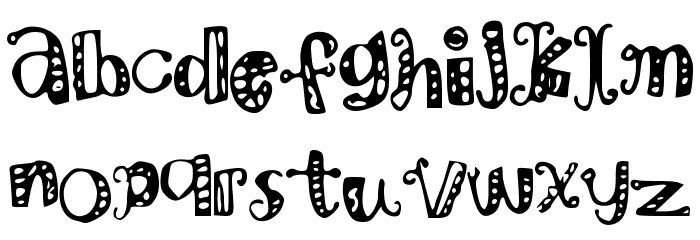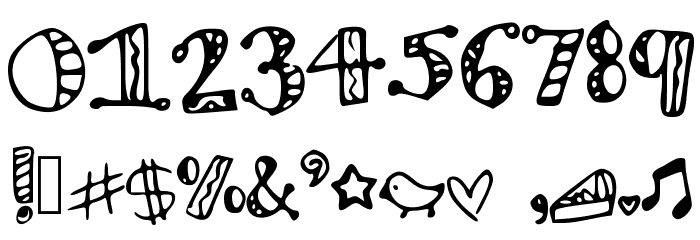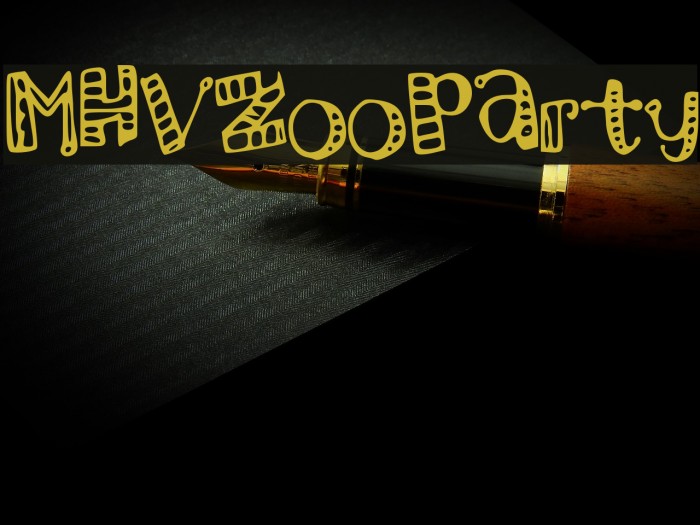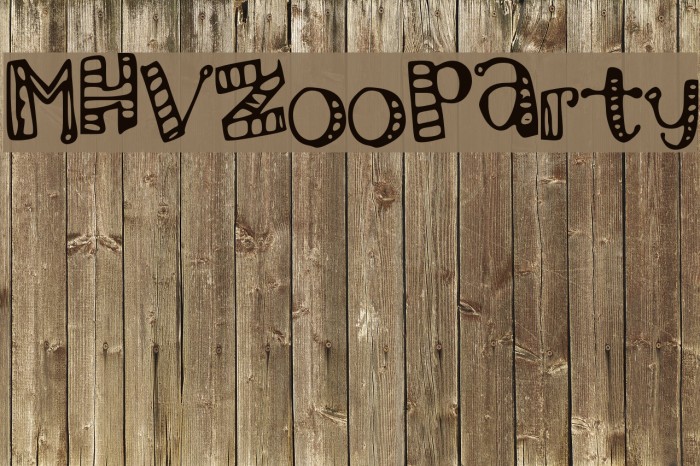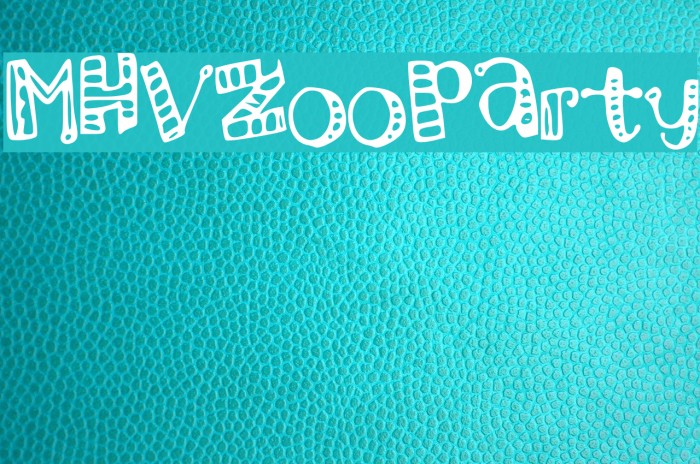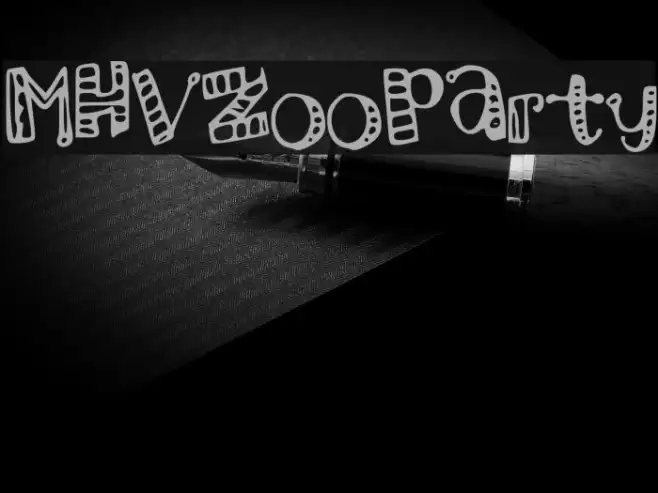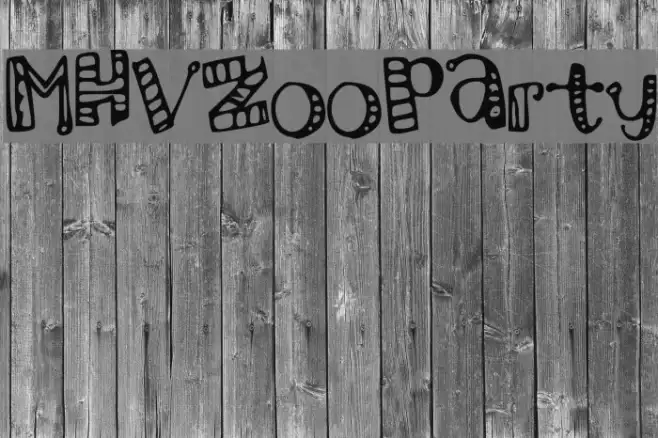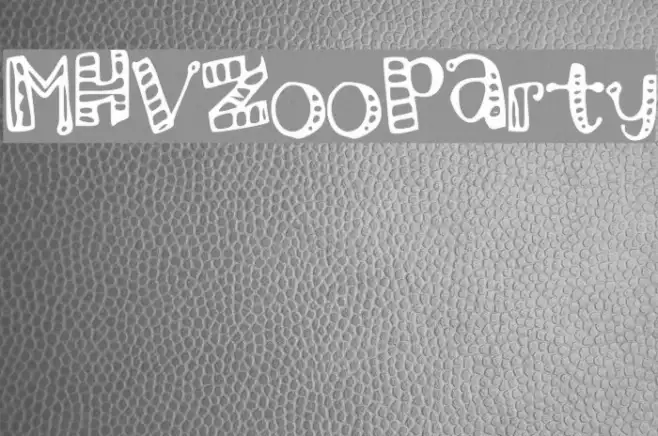
MHVZooParty Font
This playful and whimsical font features a variety of decorative elements within each character, including polka dots, stripes, and stars. The letters are bold and cartoonish, with a hand-drawn aesthetic that adds a sense of fun and creativity. The uppercase and lowercase letters maintain a consistent style, while the numbers and special characters are equally playful, incorporating unique shapes and embellishments. This font is perfect for projects that require a lively and engaging visual impact.
A playful, decorative font with whimsical, hand-drawn elements.
- Proposed Projects: Ideal for children's books, party invitations, playful branding, and creative posters.